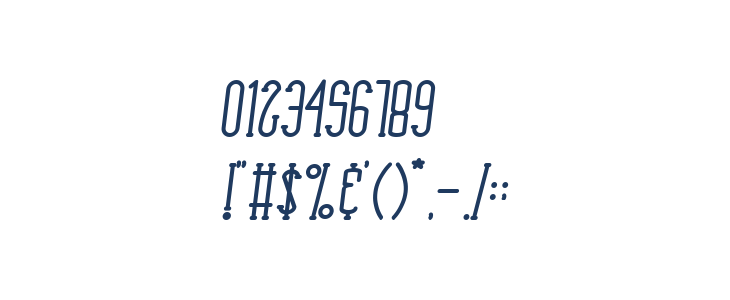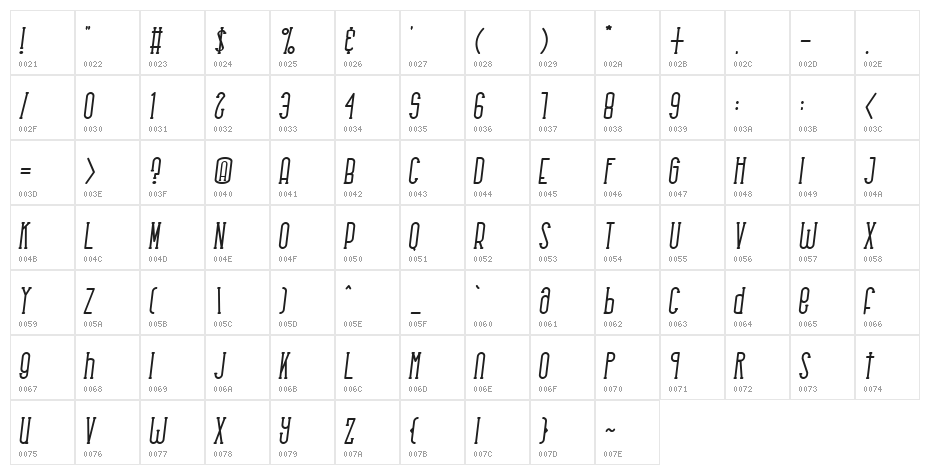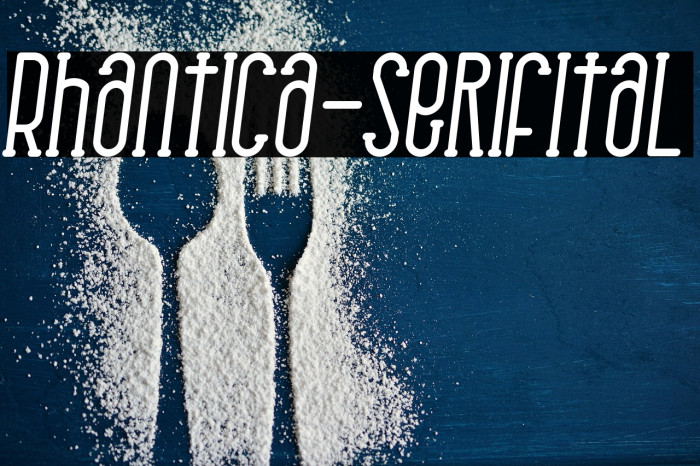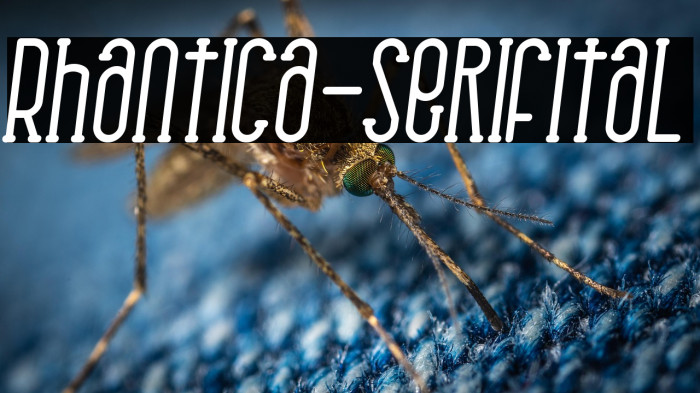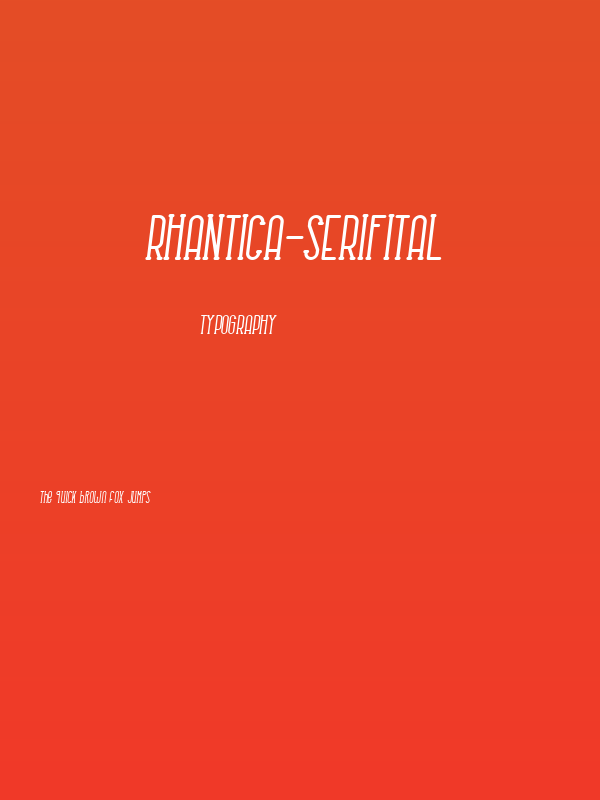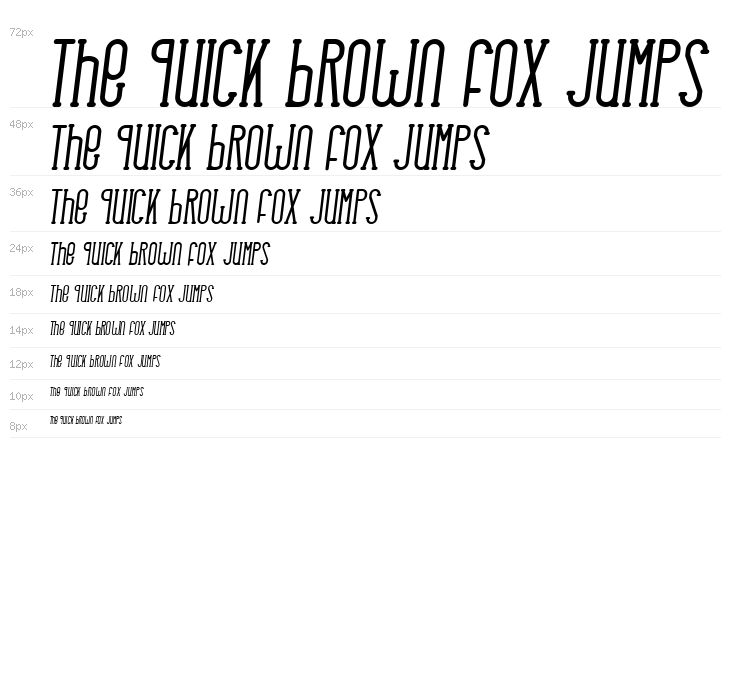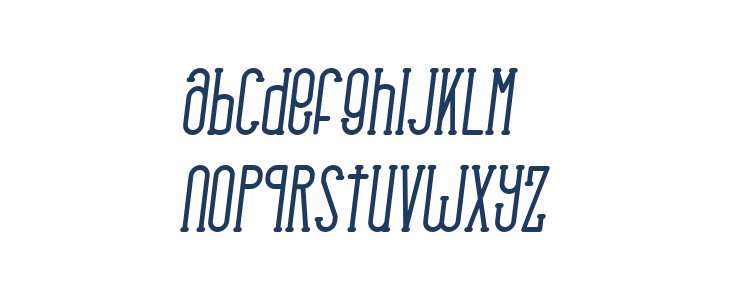
Rhantica-SerifItal Font
Rhantica-SerifItal Description
This font features a distinctive serif style with a pronounced italic slant, giving it a dynamic and elegant appearance. The characters are elongated with a consistent stroke width, creating a harmonious flow across the text. The uppercase letters are tall and narrow, while the lowercase letters maintain a similar proportion, enhancing readability. The numbers and special characters are designed to match the overall aesthetic, ensuring a cohesive look. This font's unique style makes it suitable for creative and artistic projects.
| Use Case | Headlines, Logos, Editorial Design |
| Proposed Projects | Ideal for branding, editorial design, and artistic projects that require a touch of elegance and sophistication. |